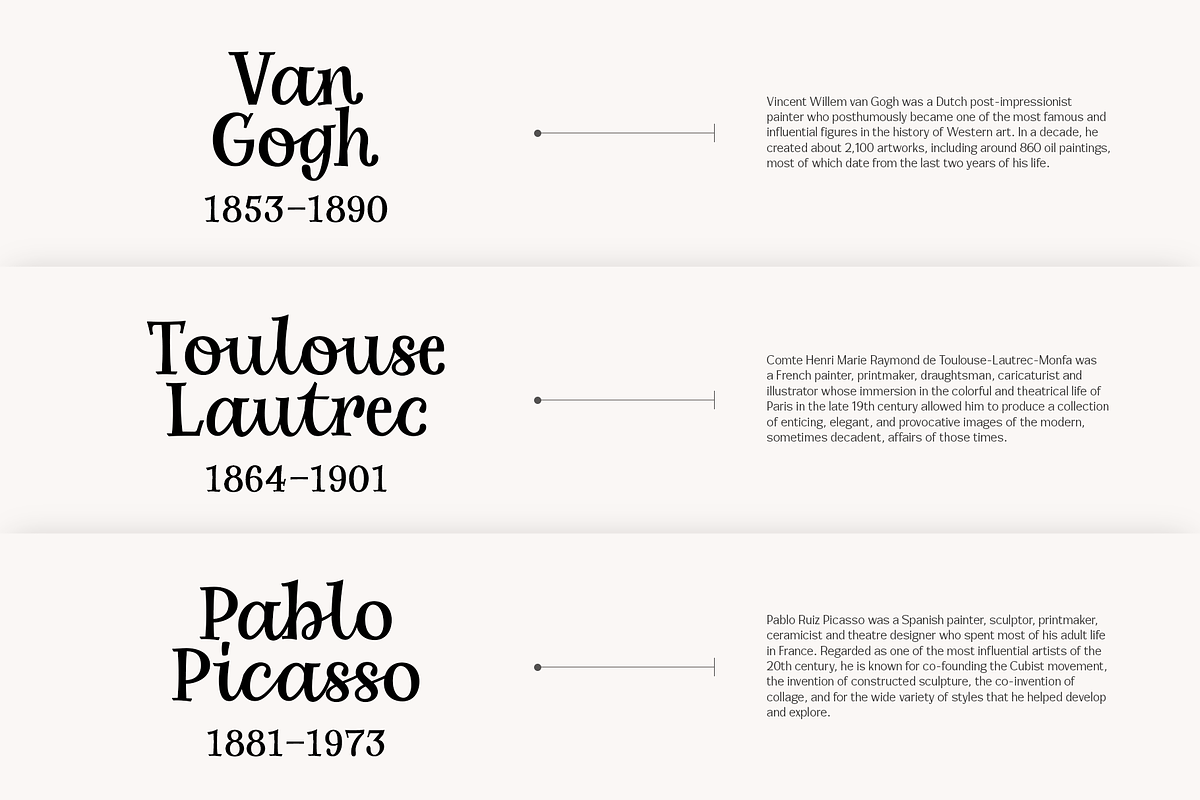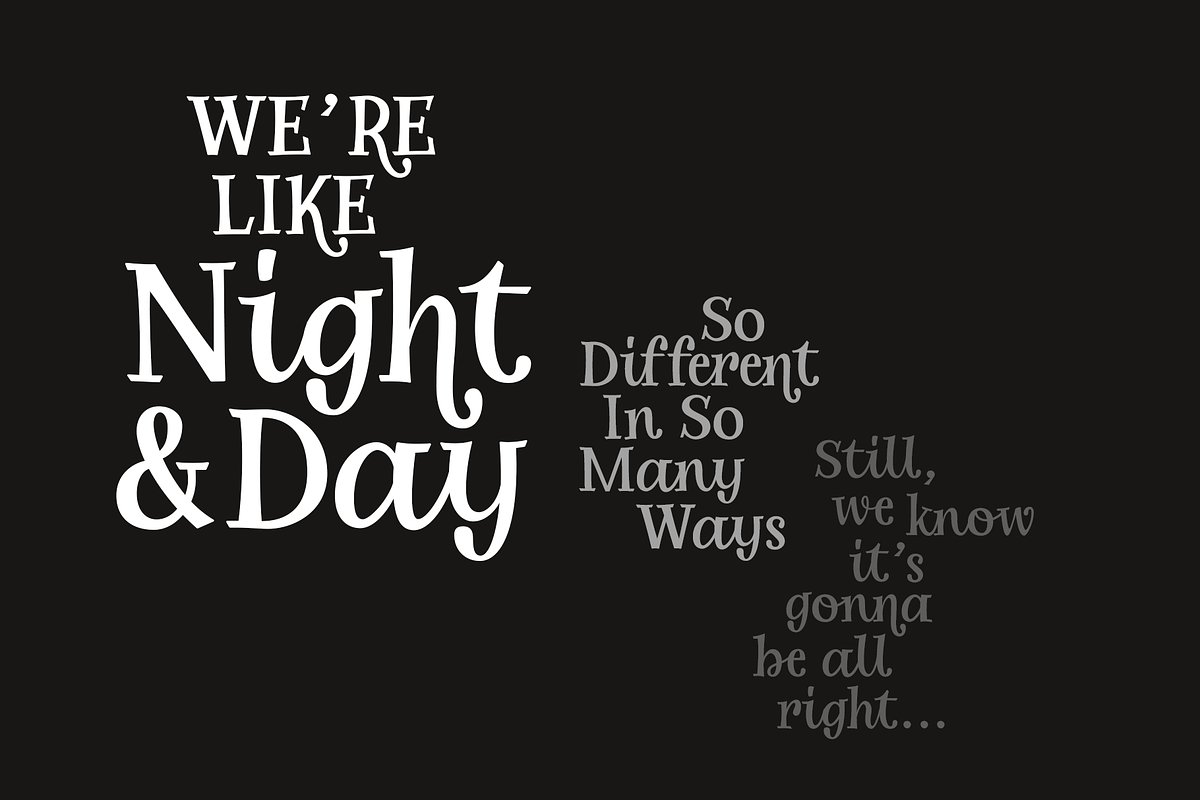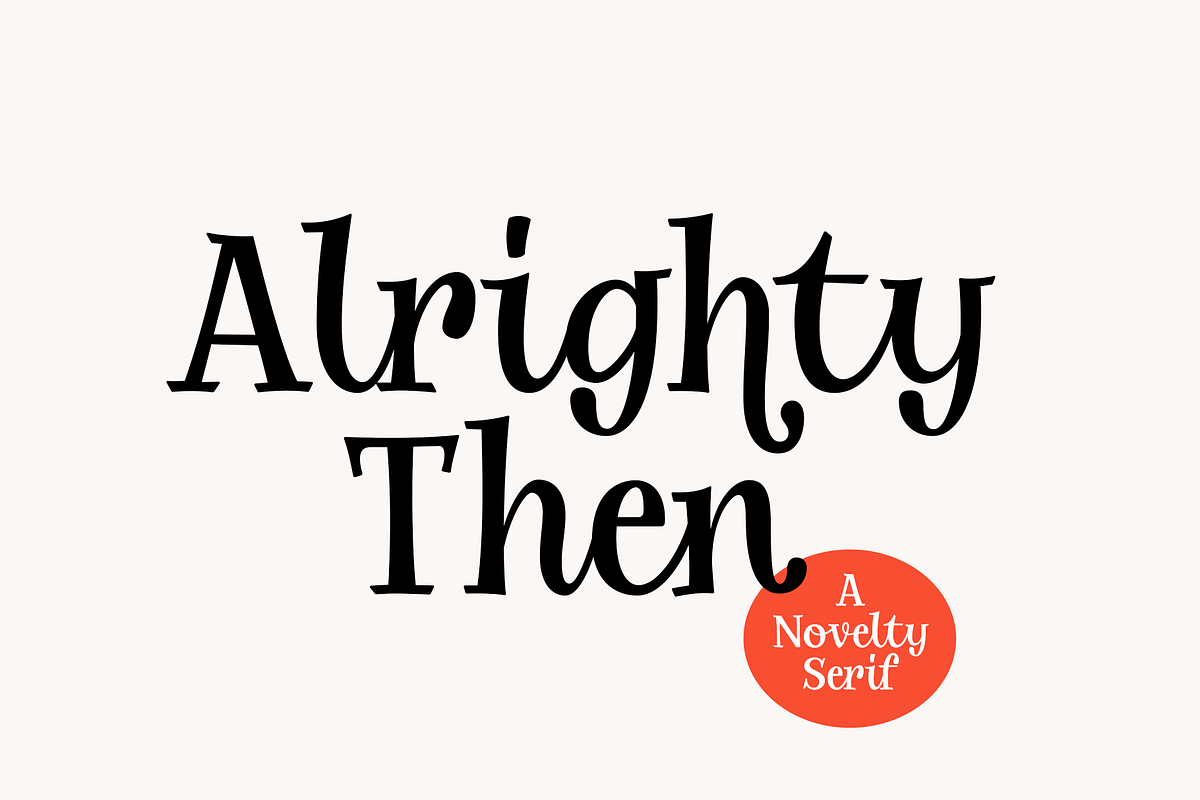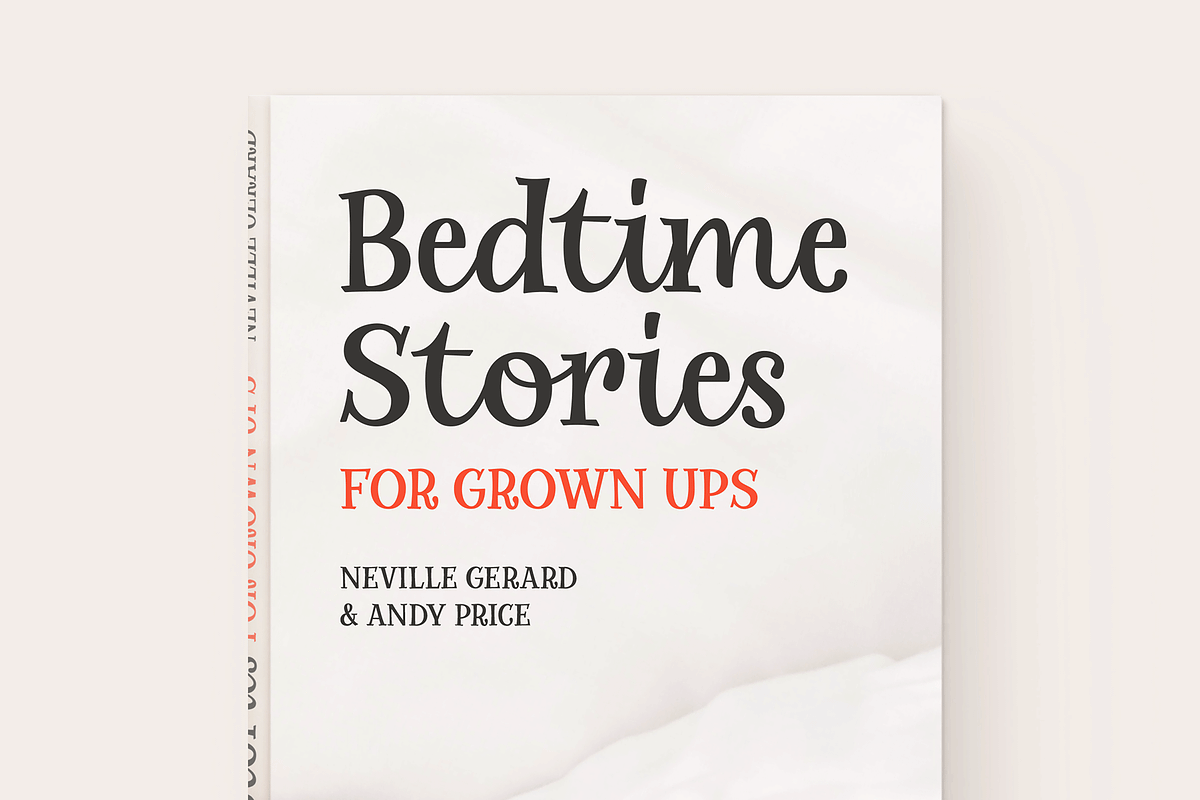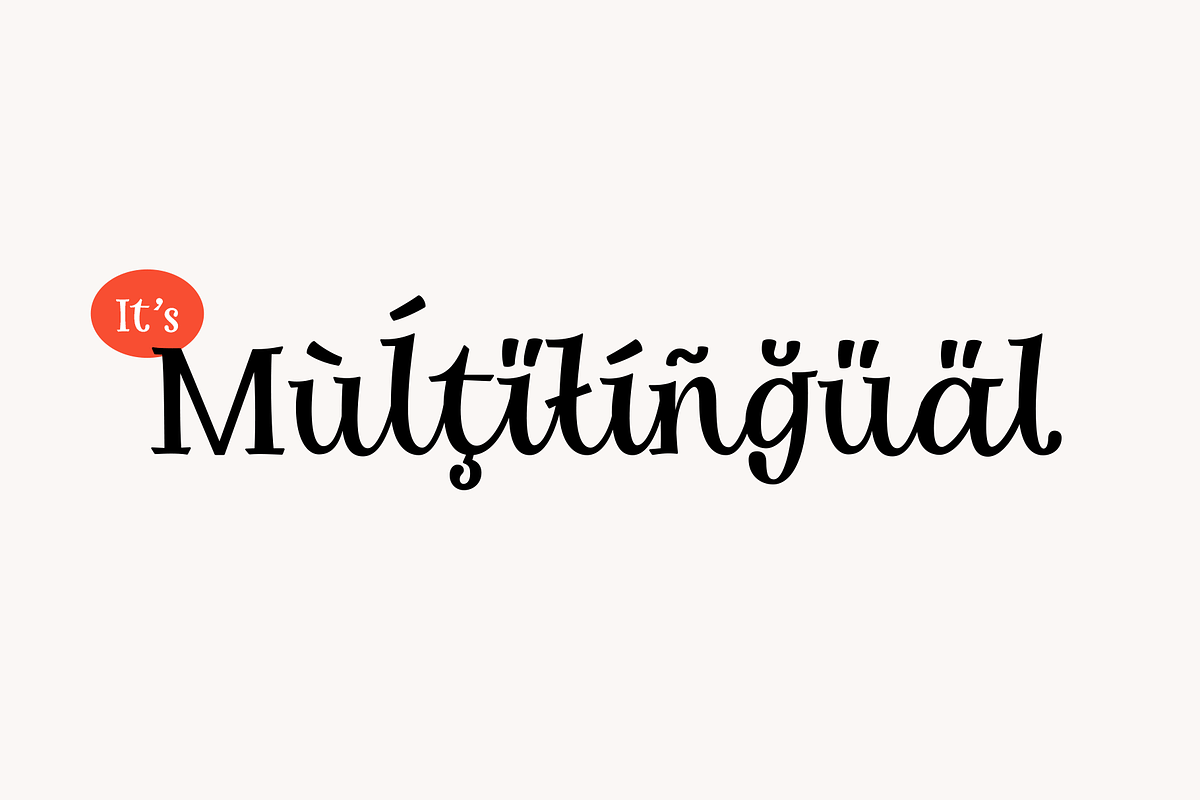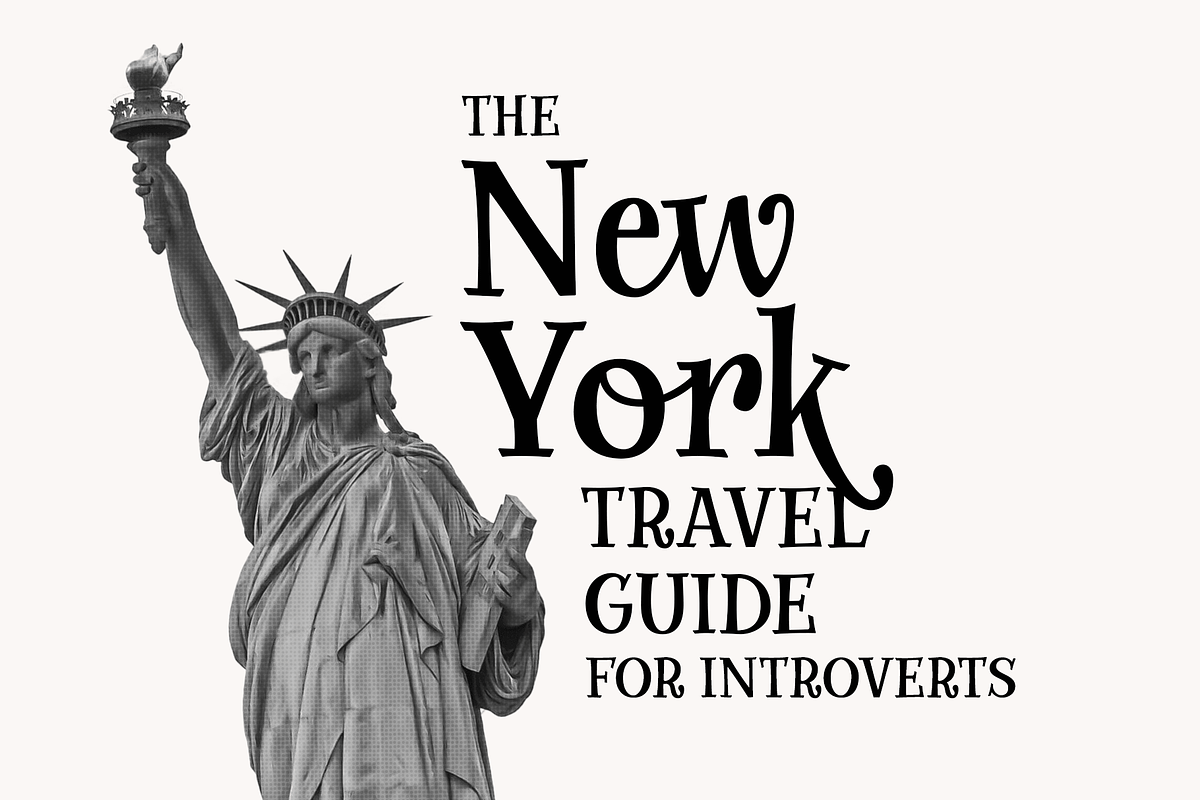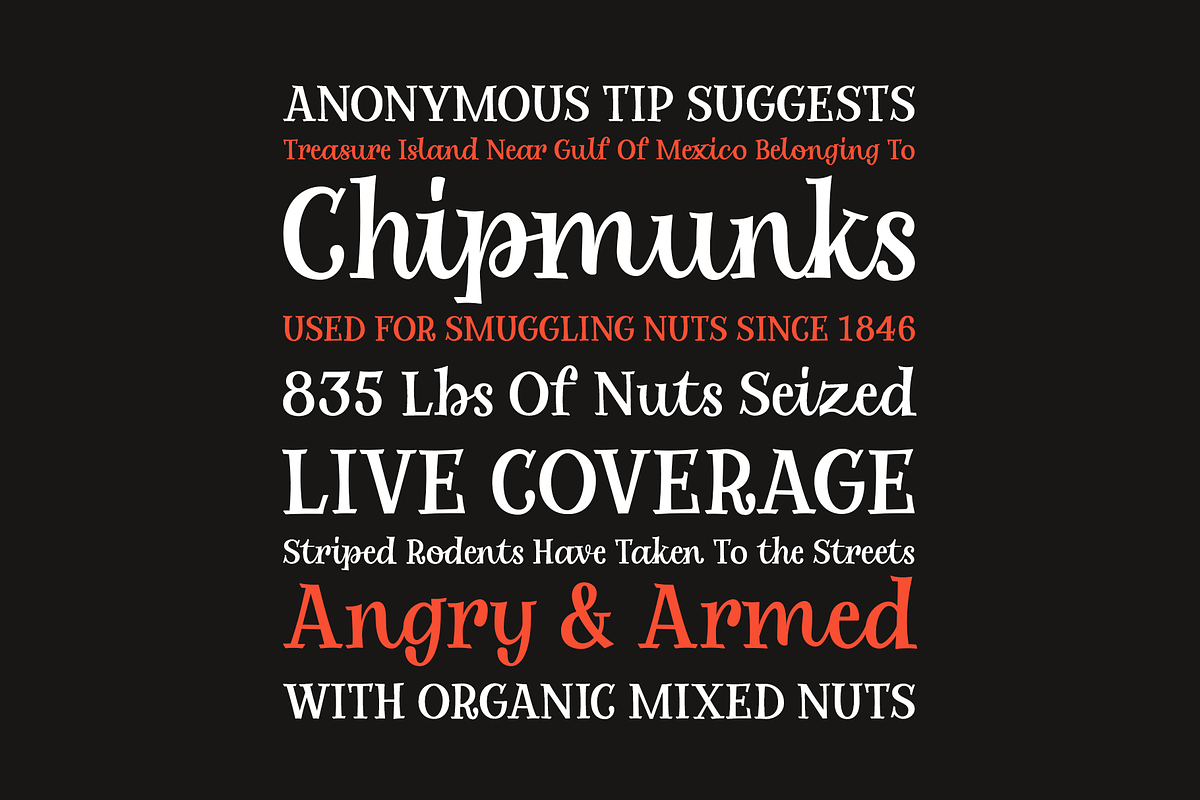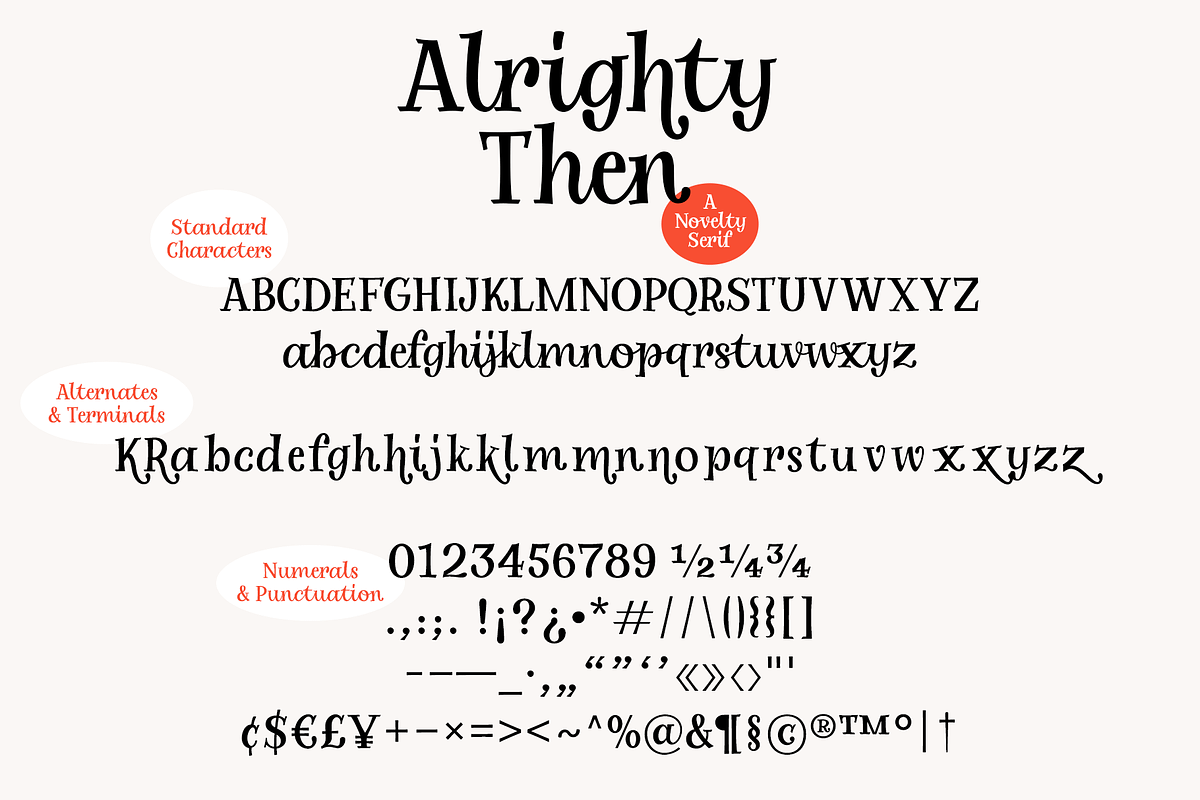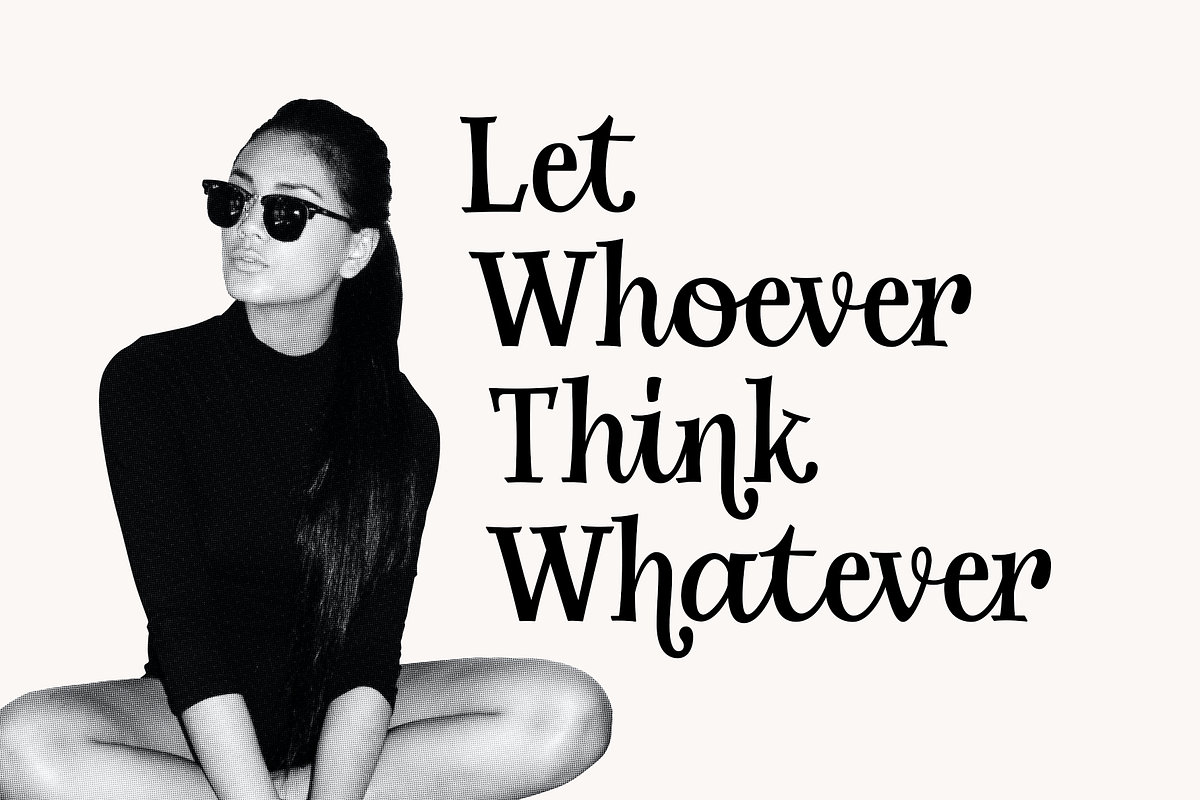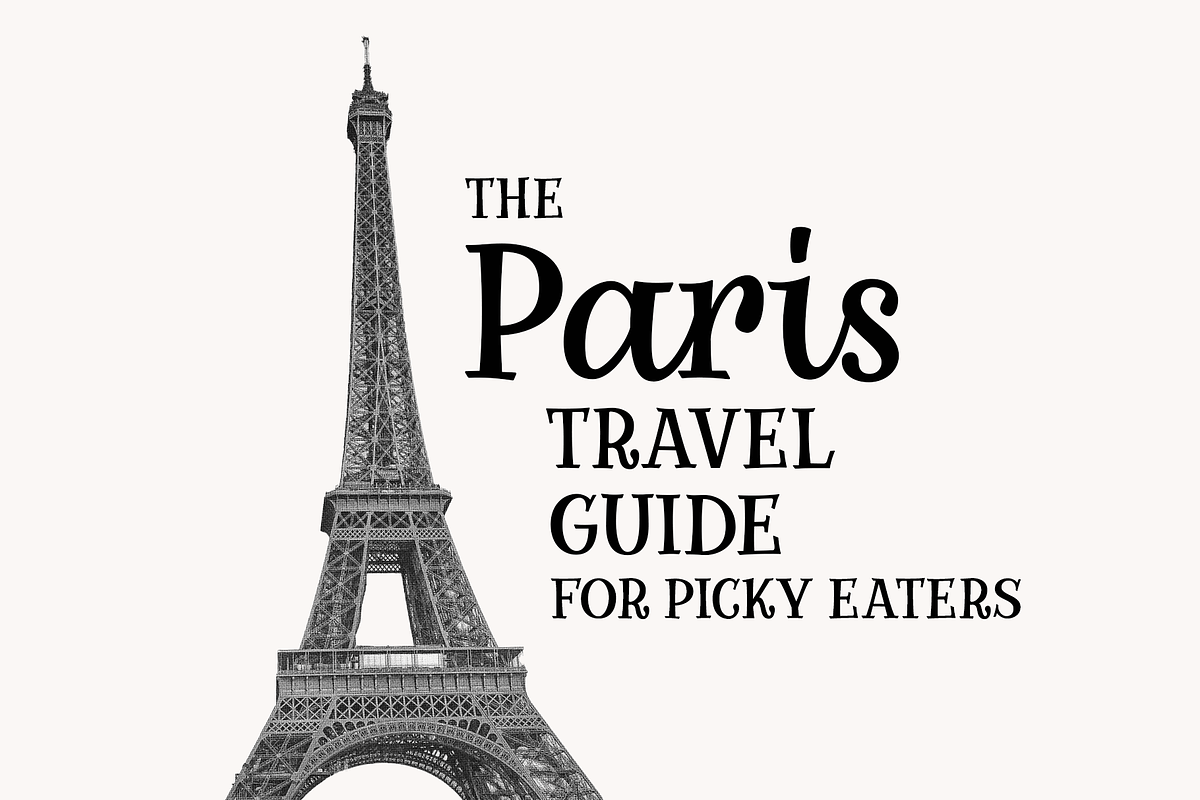
Alrighty Then | A Novelty Serif
Alrighty Then is a fun novelty font that’s essentially a hybrid that combines script and serif. With its whimsical and outstanding character, Alrighty Then is an excellent display typeface for use in both print and digital projects.
- Uppercase and Lowercase Letters
- Terminals and Alternate Forms